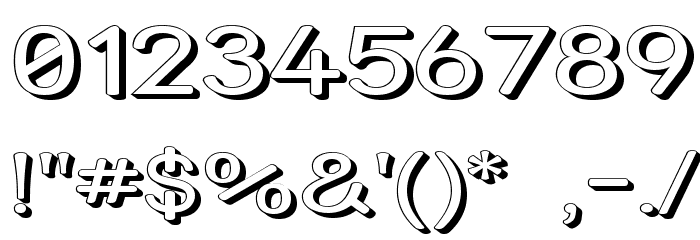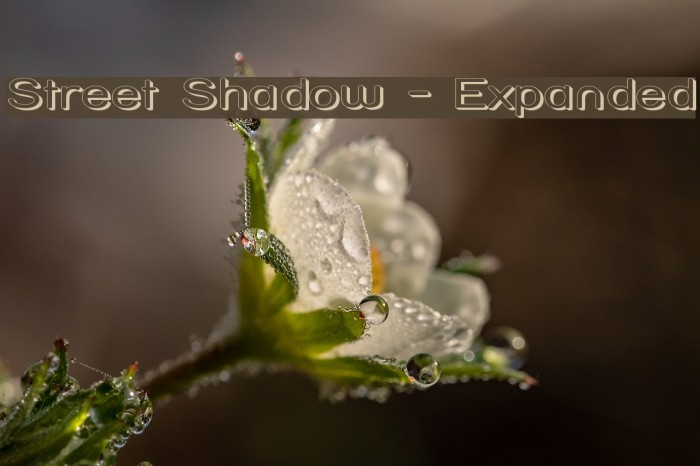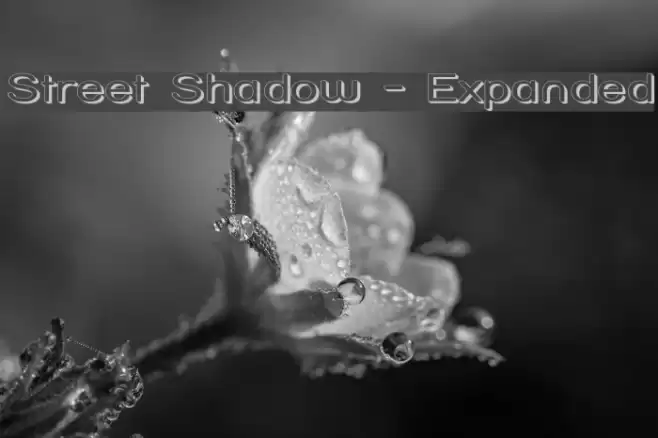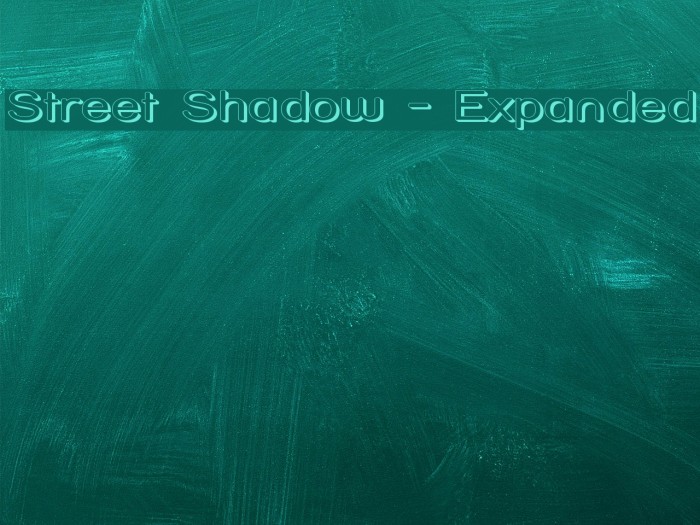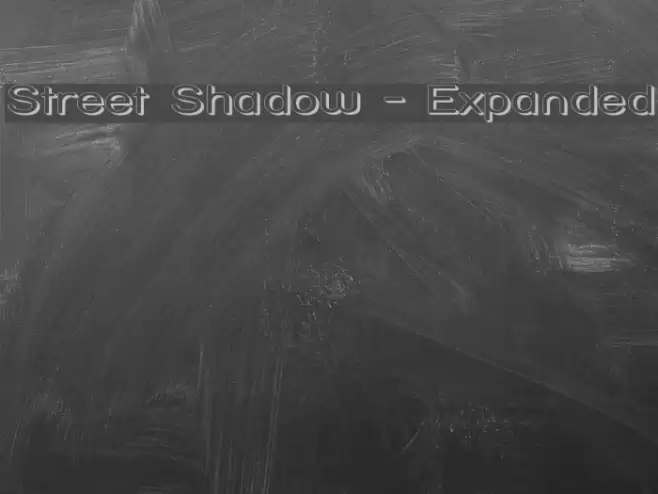
Street Shadow - Expanded Font
Street Shadow - Expanded Description
This font features a bold and modern design with a unique shadow effect that gives it a three-dimensional appearance. The characters are well-defined with clean lines and a consistent stroke width, creating a strong visual impact. The uppercase and lowercase letters maintain a uniform style, while the numerals and special characters are crafted to match the overall aesthetic. The shadow effect adds depth and dimension, making it stand out in various design contexts. This font is perfect for projects that require a contemporary and eye-catching look.
| Proposed Projects | Ideal for posters, headlines, branding, and any design requiring a striking visual presence. |